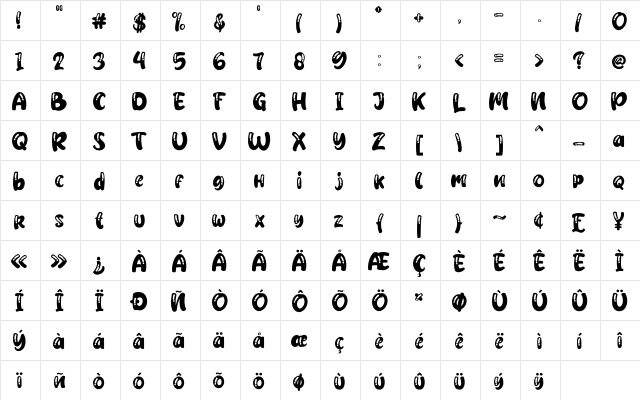
Schofield Outline Regular
| Foundry | Kong font |
| Designer | Kong font |
Design Context for Schofield Outline Typeface
Schofield Outline brings ornamental detail and strong personality to headlines and identities, where visual impact matters more than quiet functionality.
Font Pairing: Pair with a clean neutral sans-serif for body copy to let Schofield Outline's character lead without overwhelming the composition.
Pro Tip: Use Schofield Outline exclusively at display sizes — it was designed to be seen, not read at length. Let a neutral companion handle body copy.